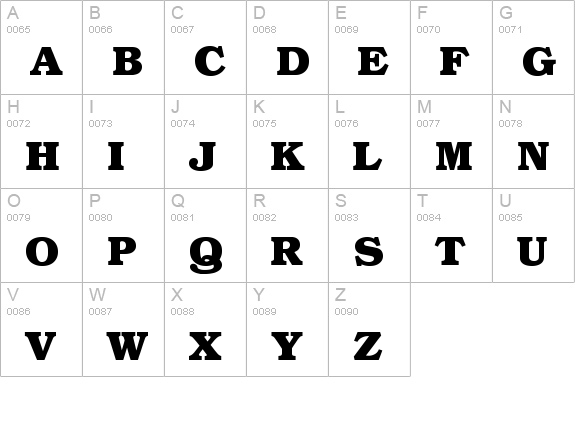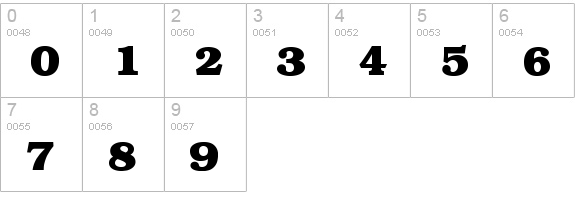
Bookman* Bold Font Details
Bookman* Bold is a strong, high-contrast variant in the Bookman* typeface family \xE2\x80\x94 well suited to headlines, attention-grabbing titles, and strong calls-to-action.
Bookman Bold is a classic and timeless font that exudes elegance and sophistication. With its bold and robust appearance, this font is perfect for creating eye-catching headlines, titles, and logos. The strong and authoritative presence of Bookman Bold makes it a popular choice for design projects that require a touch of vintage charm. Its well-defined letterforms and sturdy serifs give it a sense of reliability and trustworthiness. The best part? Bookman Bold is available for free download at FontsMarket.com. This means you can easily access this versatile font and use it in your projects without any cost. Whether you're designing a poster, a website, or a branding identity, Bookman Bold is sure to make a statement and leave a lasting impression. Embrace the timeless beauty of Bookman Bold and elevate your designs with this exceptional font.